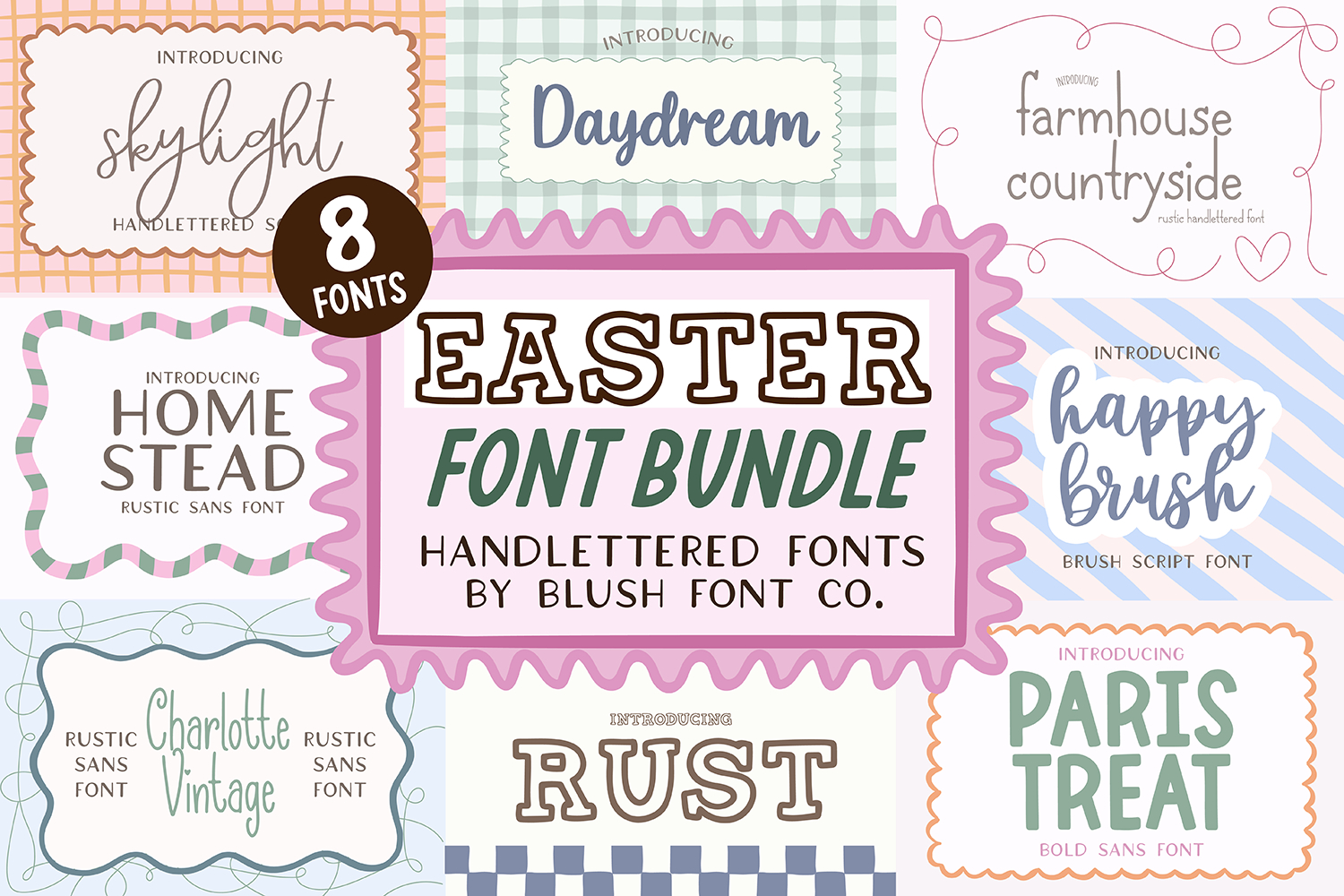
EASTER FONT BUNDLE by Blush Font Co.
This Easter font bundle includes a beautiful mix of handlettered brush script fonts and clean sans serif fonts—perfect for Cricut projects, Easter crafts, spring signs, t-shirts, and digital designs. Designed with a soft, playful, and modern feel, these fonts are ideal for creating seasonal designs that stand out.